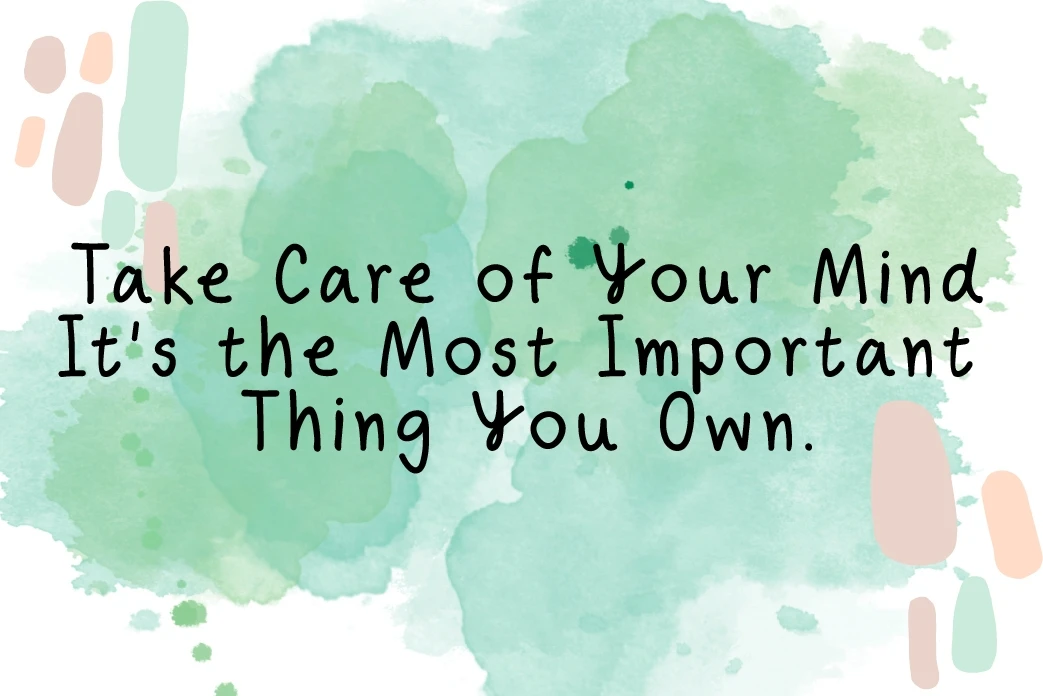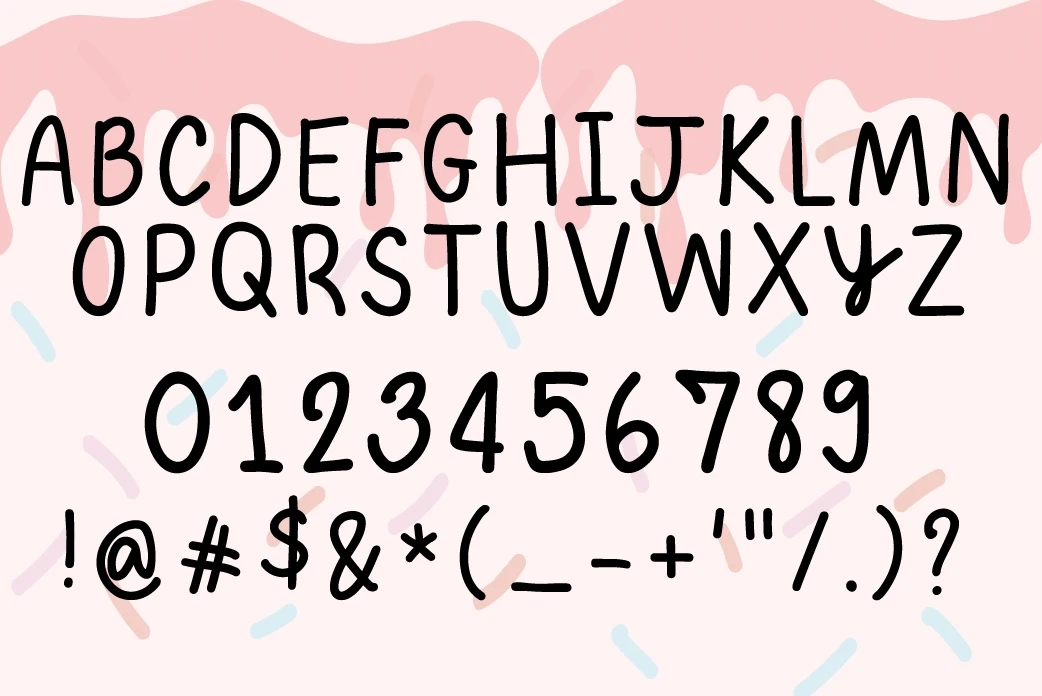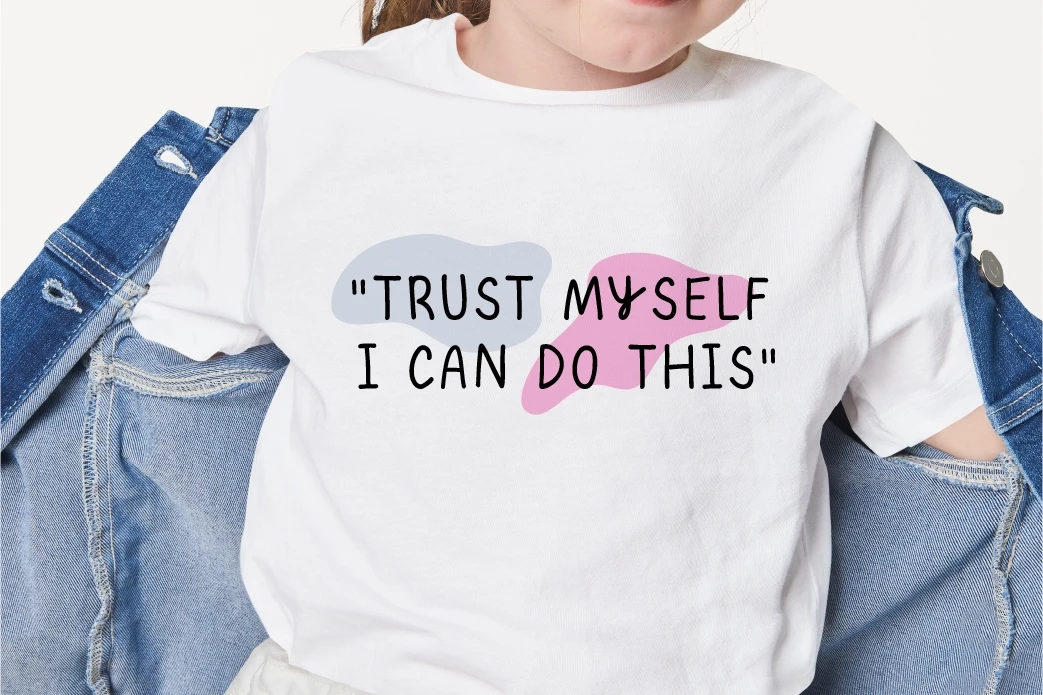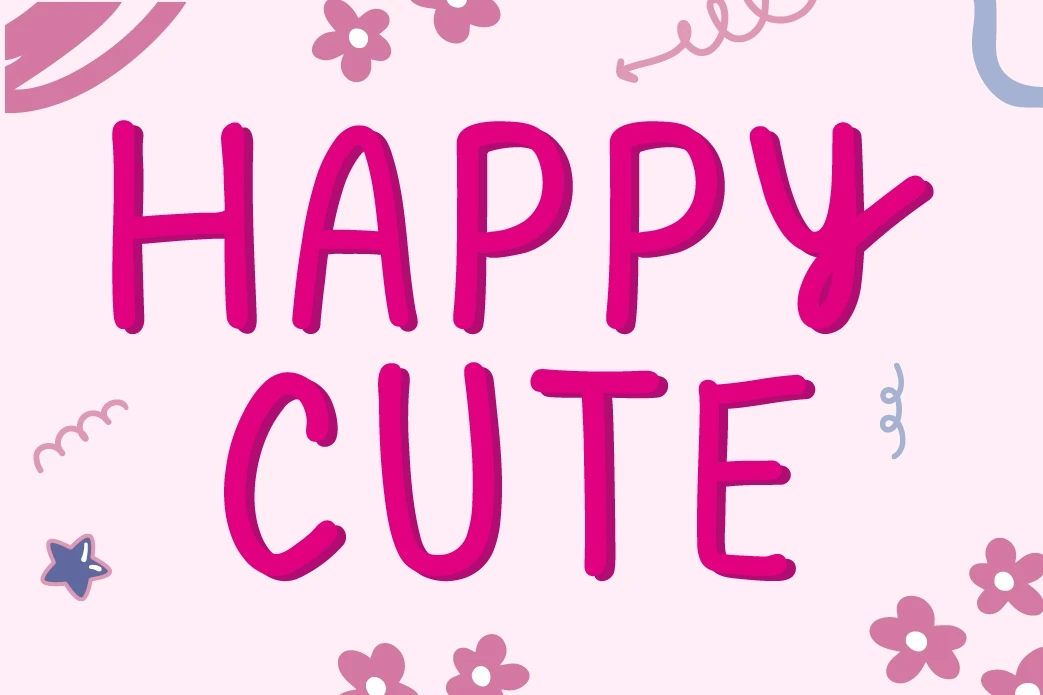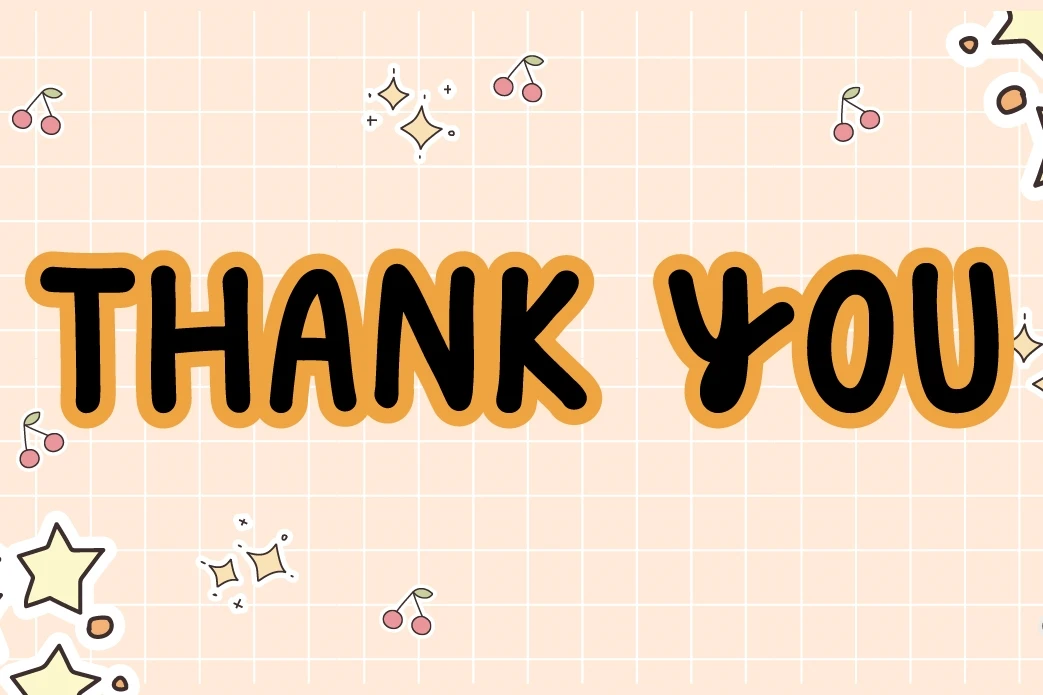
Happy Cute Handwriting Font
Happy Cute is font casual, and creative. Natural-looking handwritten letters, characters include uppercase, and lowercase letters,
special for note taking, greetings, creating invitations, posters, or digital art. This font will make your message stand out and grab attention.